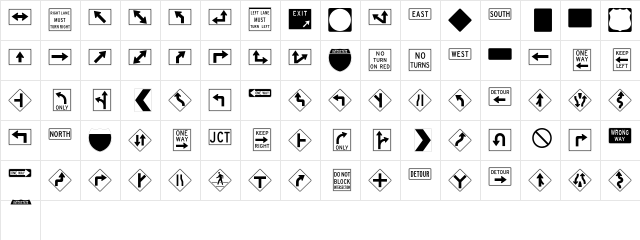
Interstate Pi One Regular Font Preview
Interstate Pi One Regular
Interstate Pi One Regular Font Details
Design Context for Interstate Pi One Typeface
Interstate Pi One is a composed and adaptable typeface that performs quietly and consistently across a wide range of design contexts.